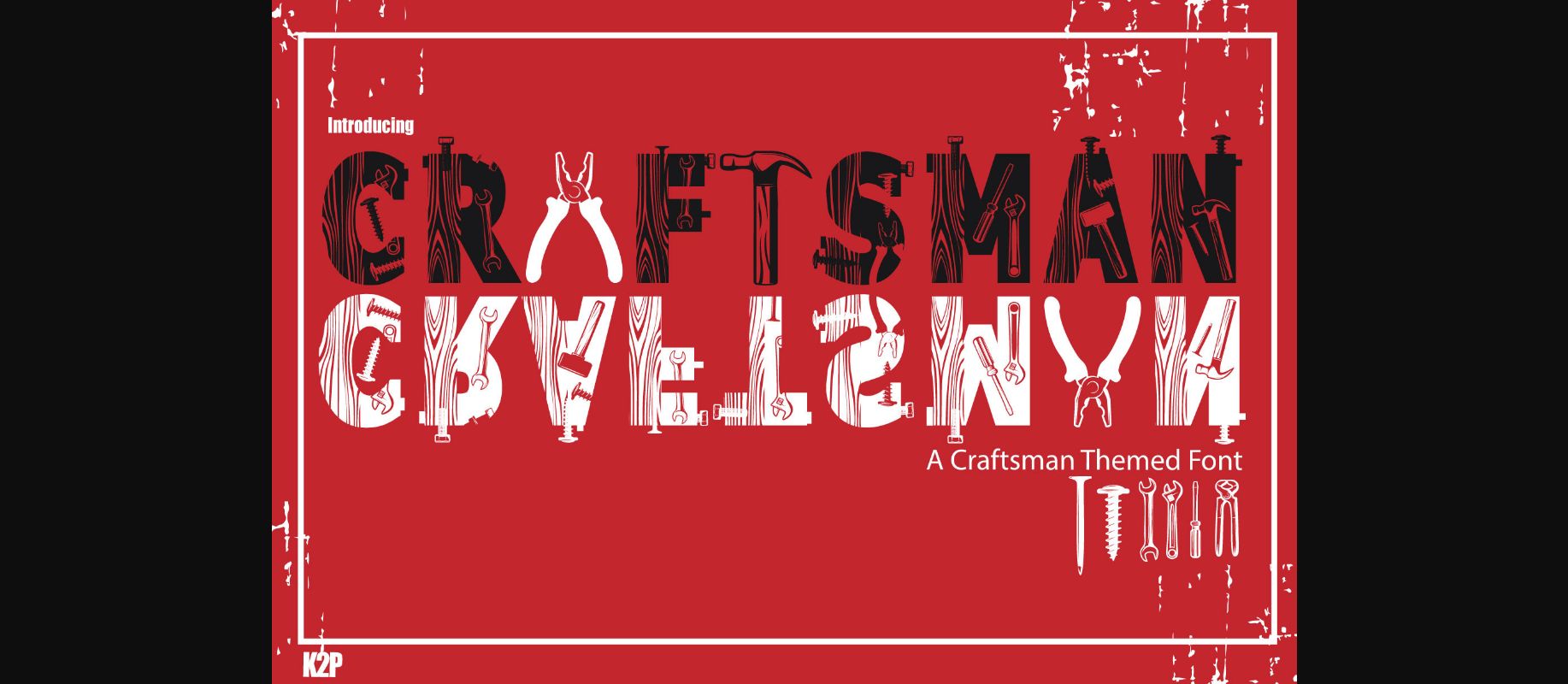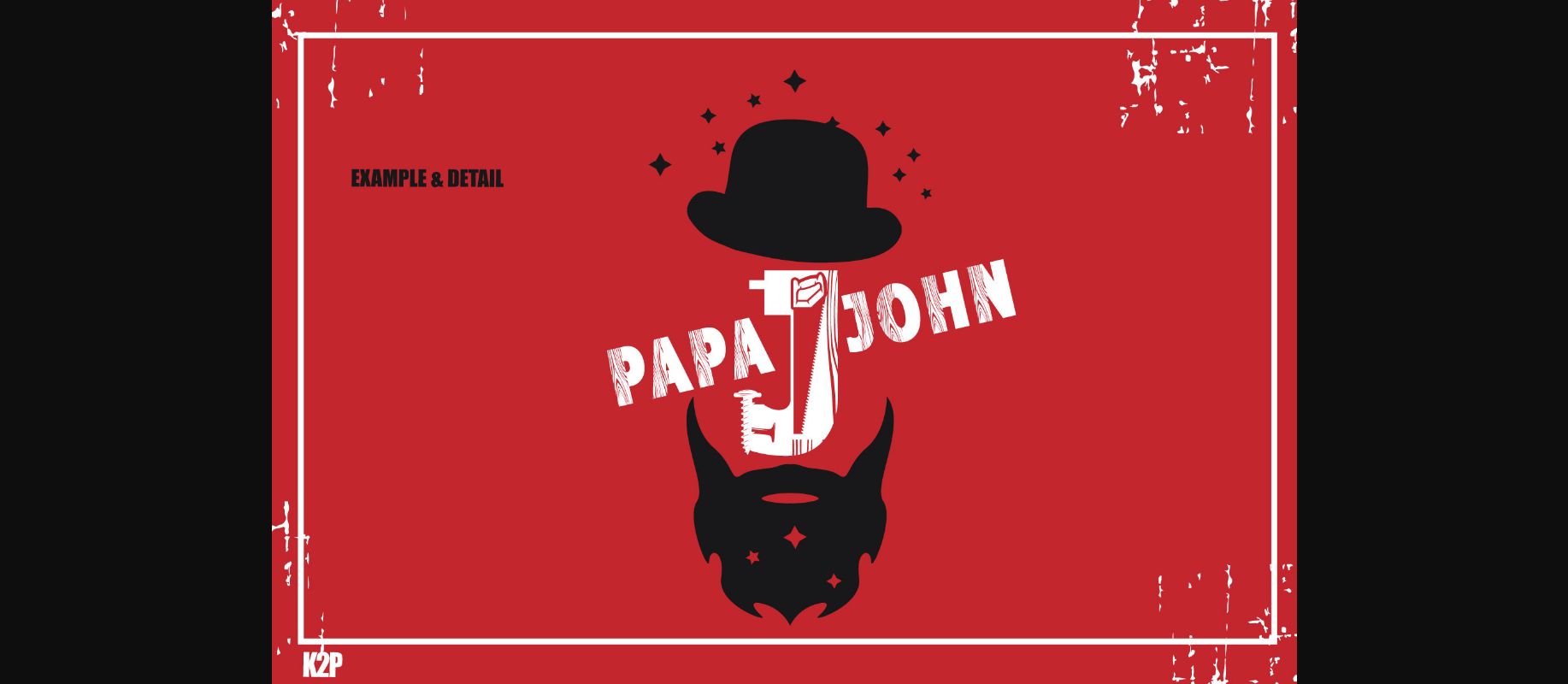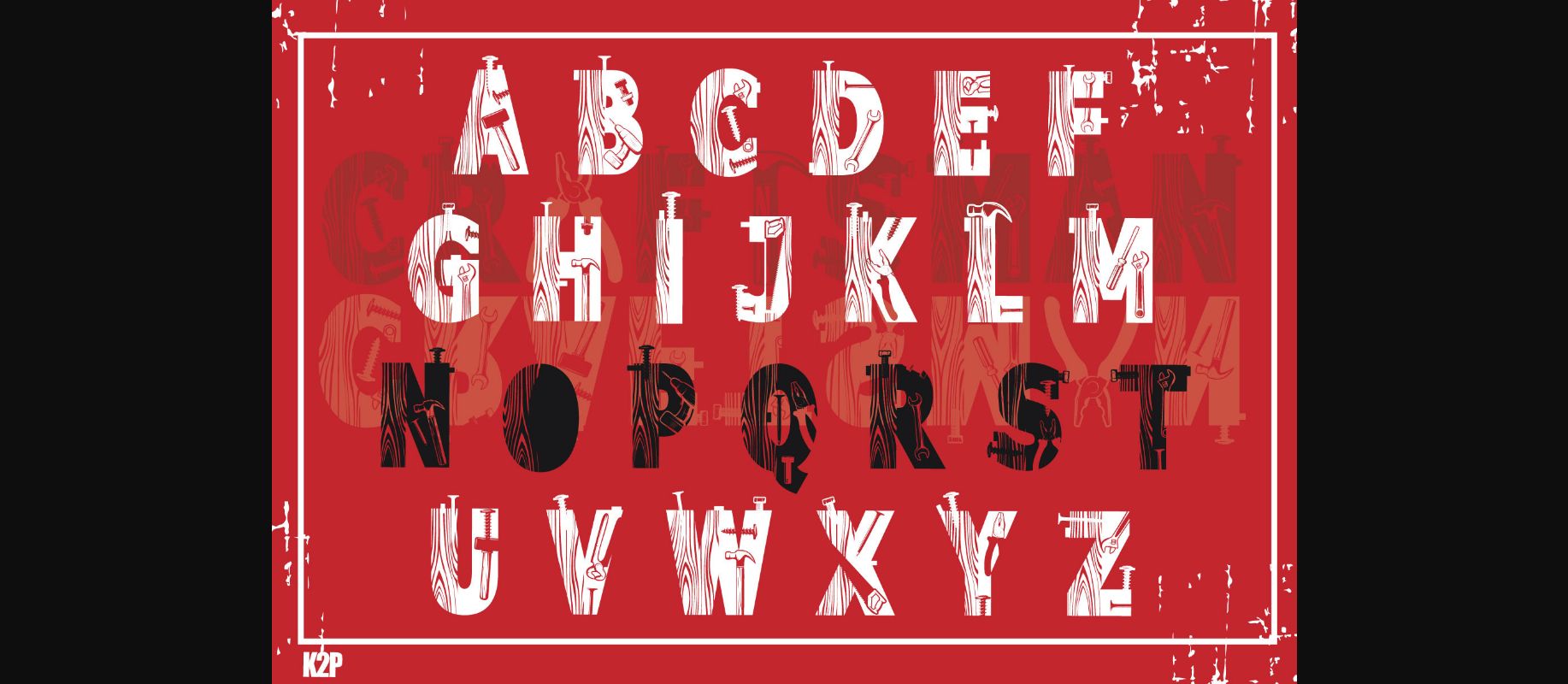
About Craftsman Font
Craftsman is a cool, fun and bold decorative font. It is perfect for product packaging, branding project, magazine covers, social media, wedding, or just used to express words above the background.